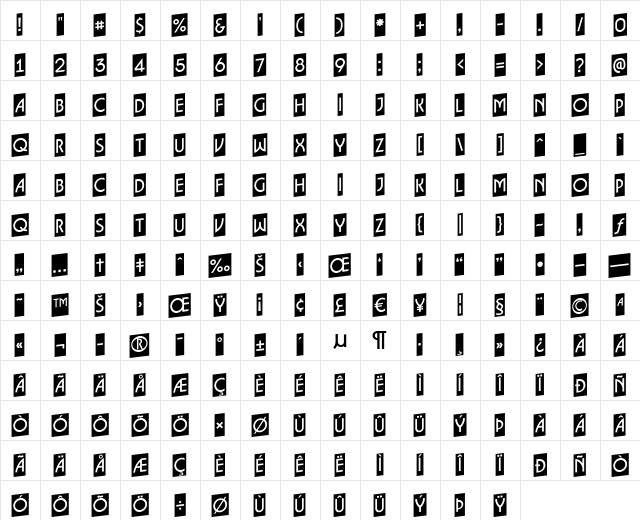
a_LancetCmUp Regular
| Designer | W.Chufarofsky & M.Slutsker |
Design Context for a_LancetCmUp Typeface
a_LancetCmUp is a composed and adaptable typeface that performs quietly and consistently across a wide range of design contexts.